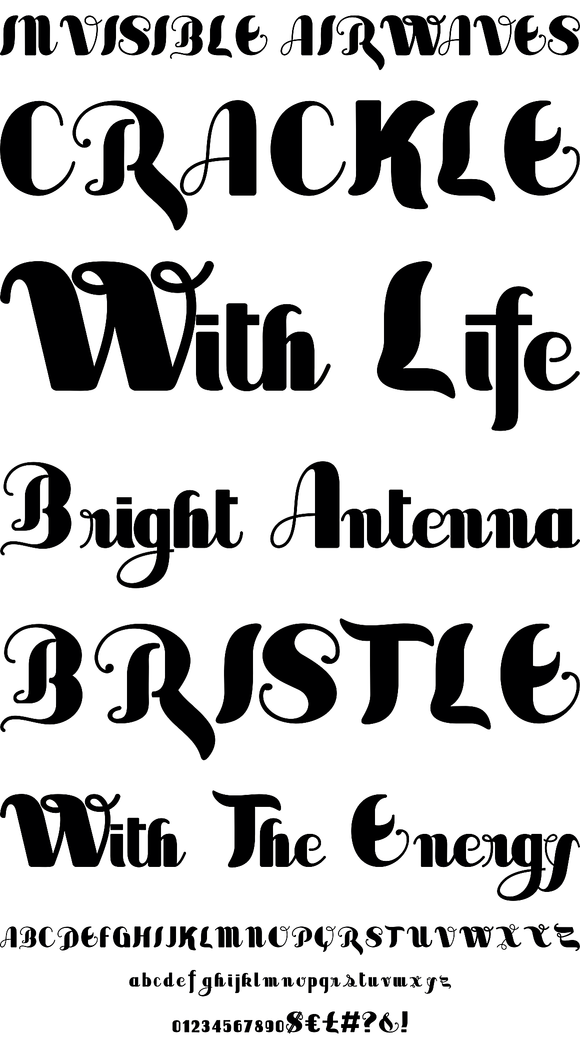
Sabor is a voluptuous display font with hint of script style. Loaded with thousands of kerning pairs and OpenType features, this design is a great retro themed typeface. Designed by Iza W and Paulo W.